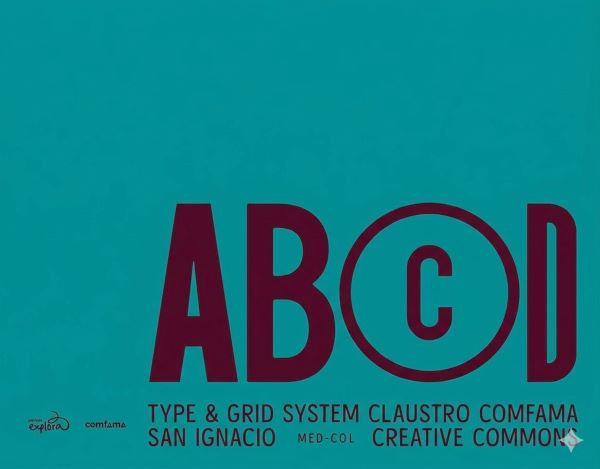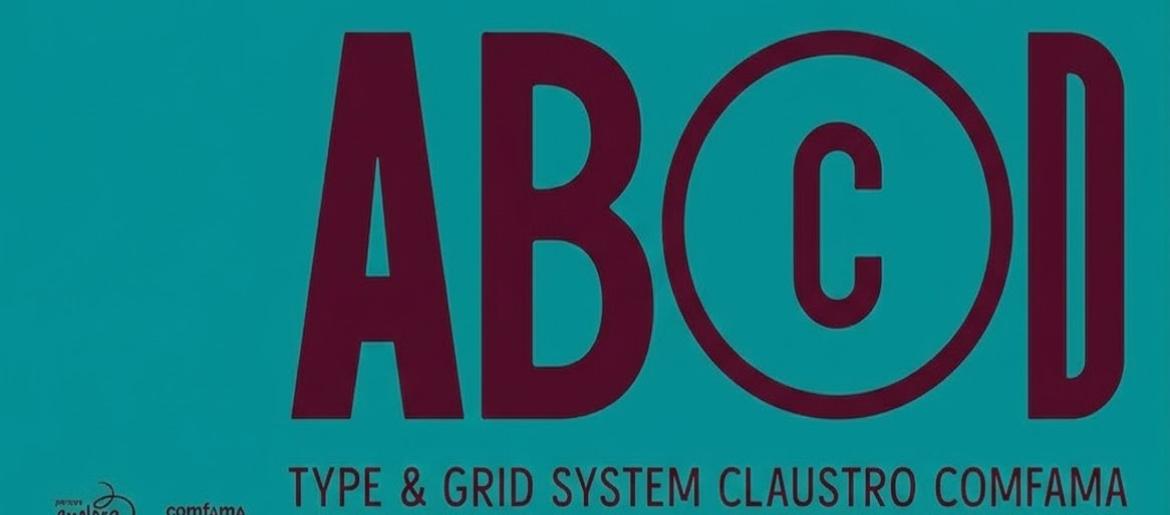
1797 Claustro Comfama Font
1797 Claustro Comfama is a free display sans serif typeface with deep roots in Colombian institutional history. Originally developed by Parque Explora under the name Neue_Haut for the Claustro Comfama San Ignacio — a historic 18th-century convent-turned-cultural center in Medellín — the typeface carries the quiet confidence of a project with genuine purpose behind it. Designed by Santiago Arango, it combines clean geometric construction with a warm, humanist sensibility, making it equally at home in editorial layouts, identity systems, and branding contexts. Its cultural origins give it a distinctive character that transcends trends, and the full family delivers enough range to carry cohesive visual systems across varied applications.